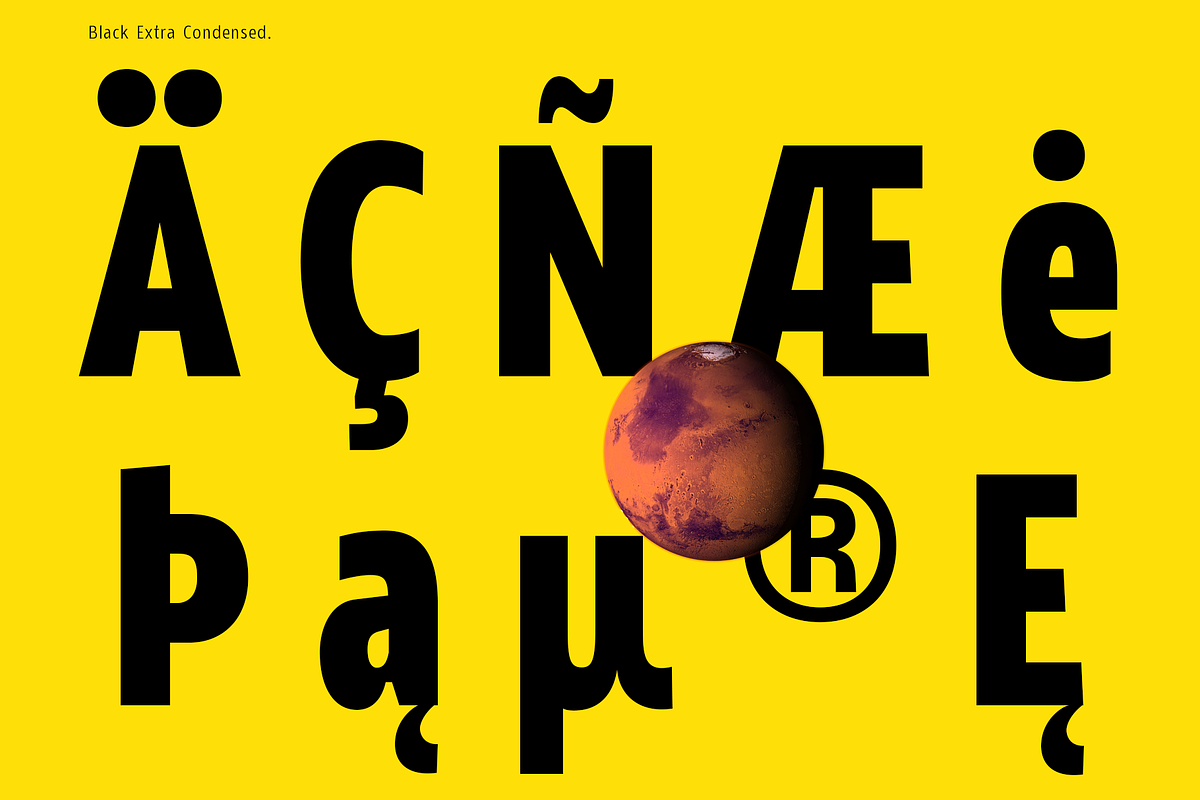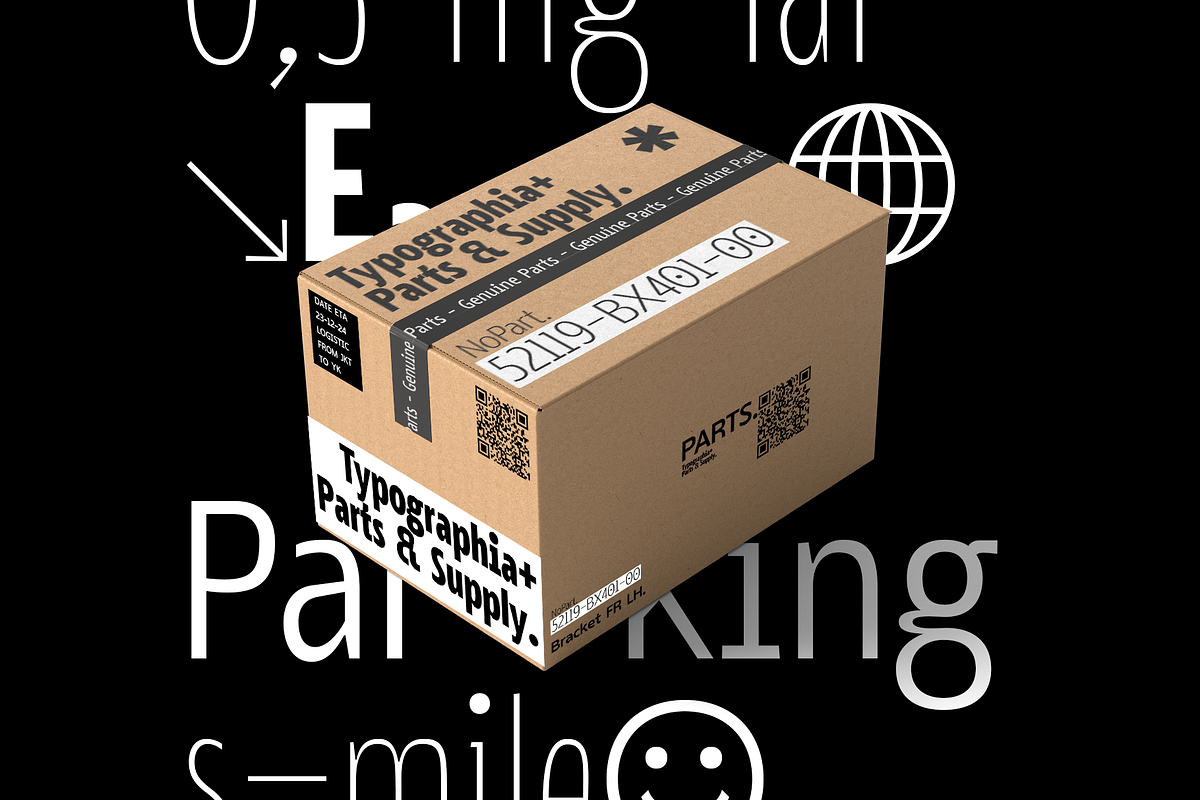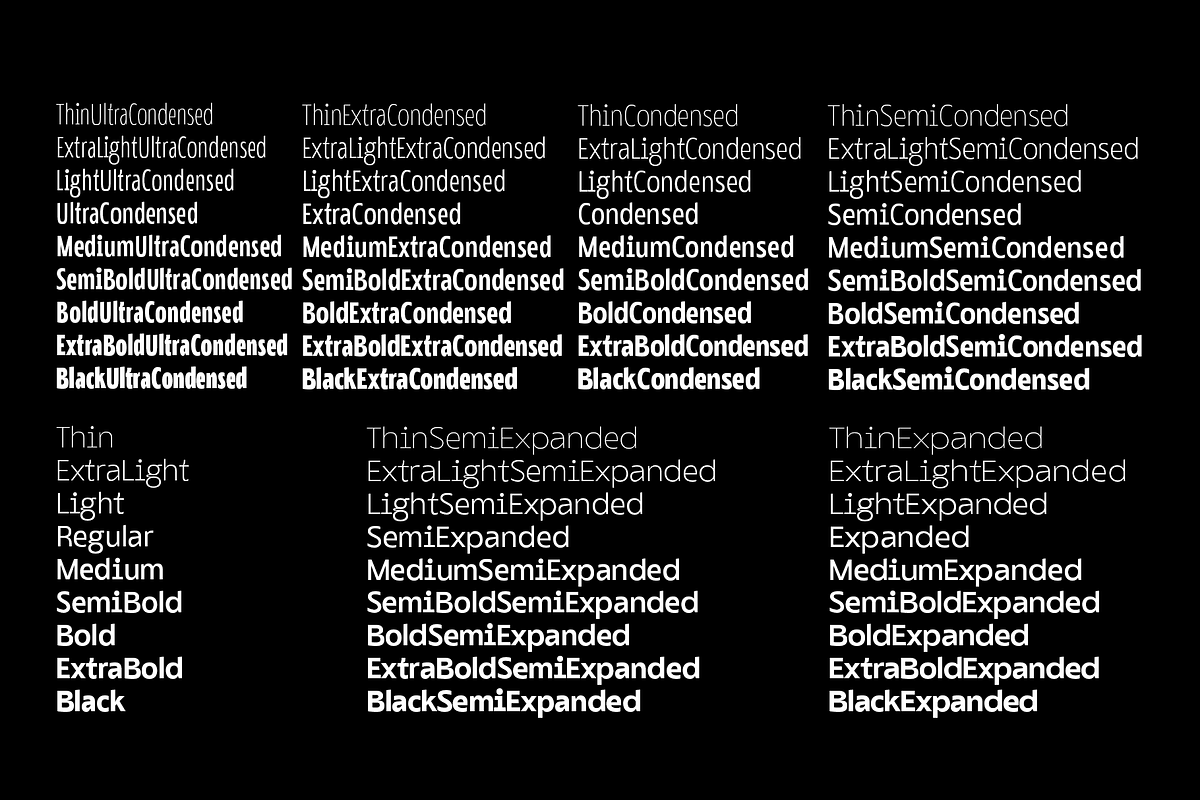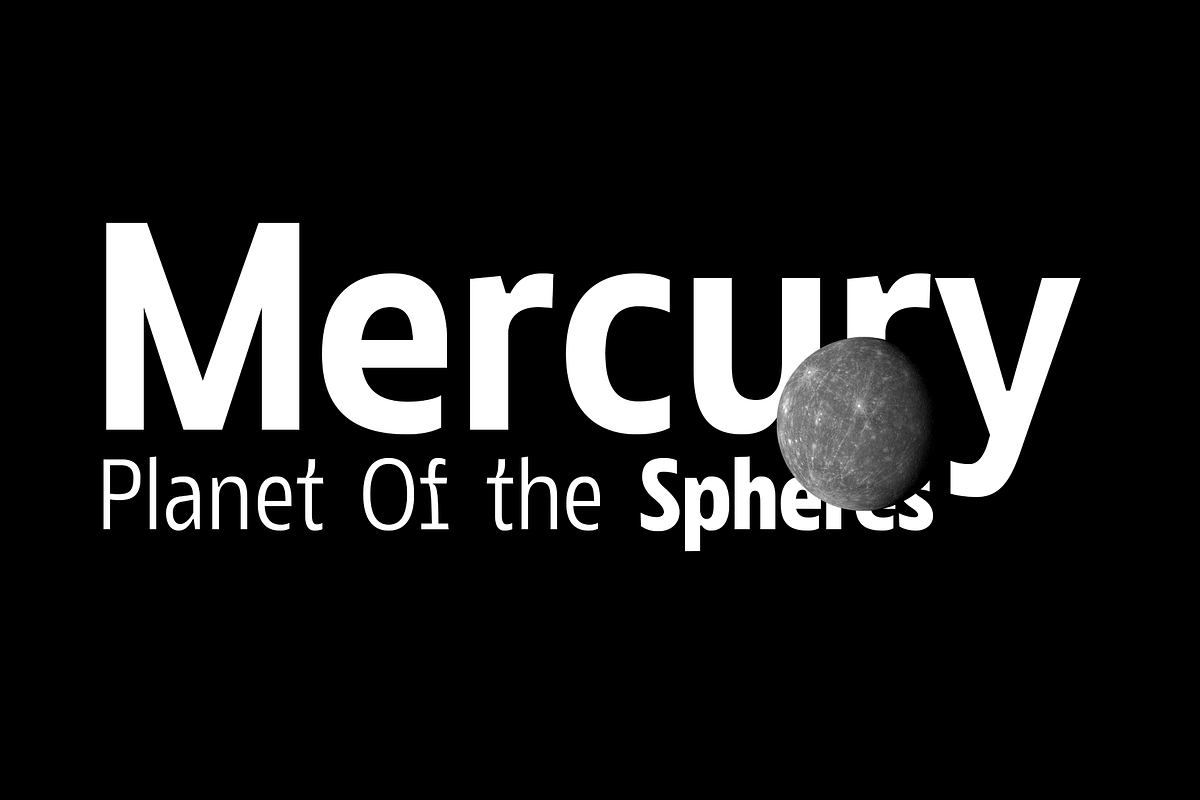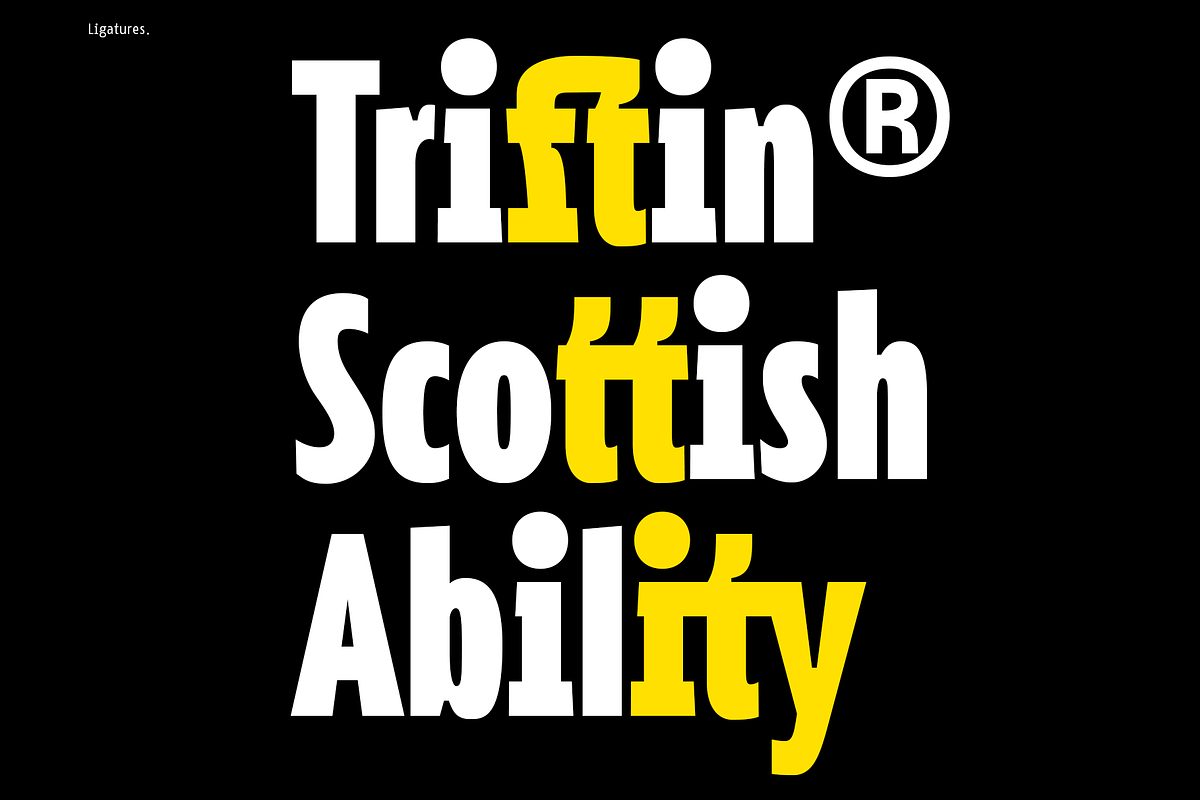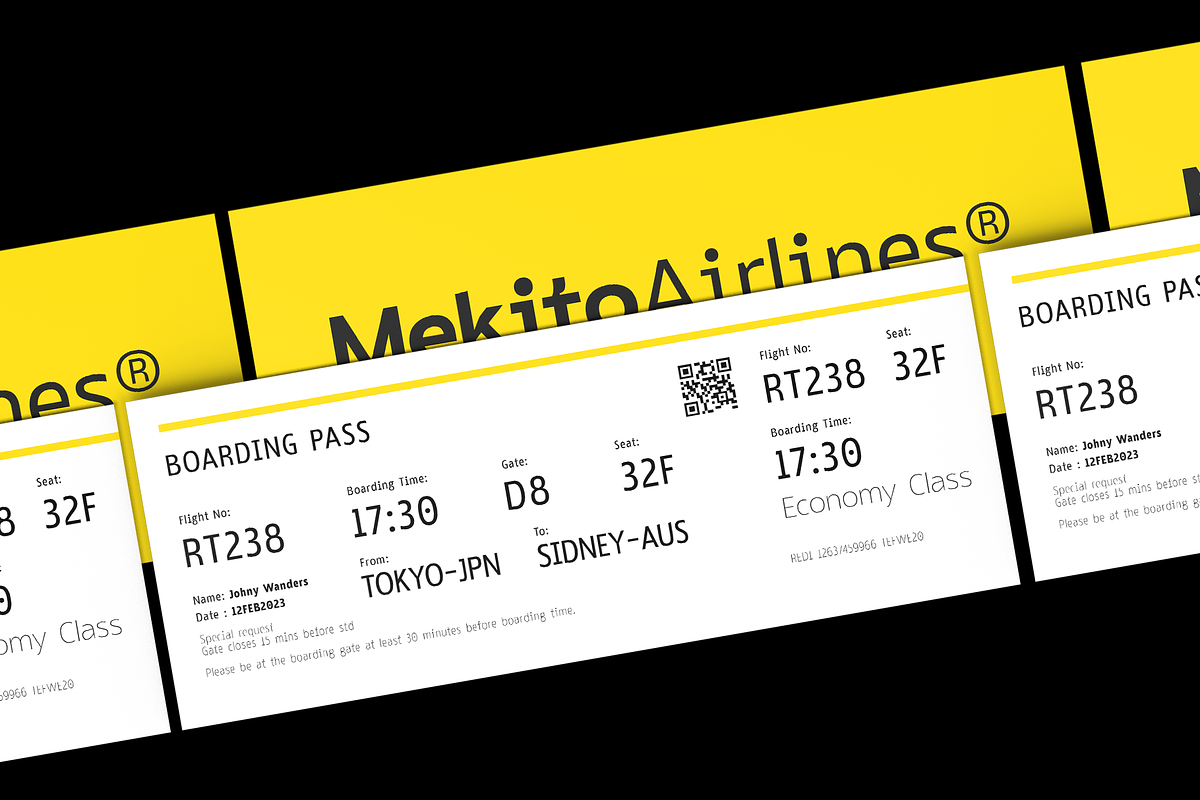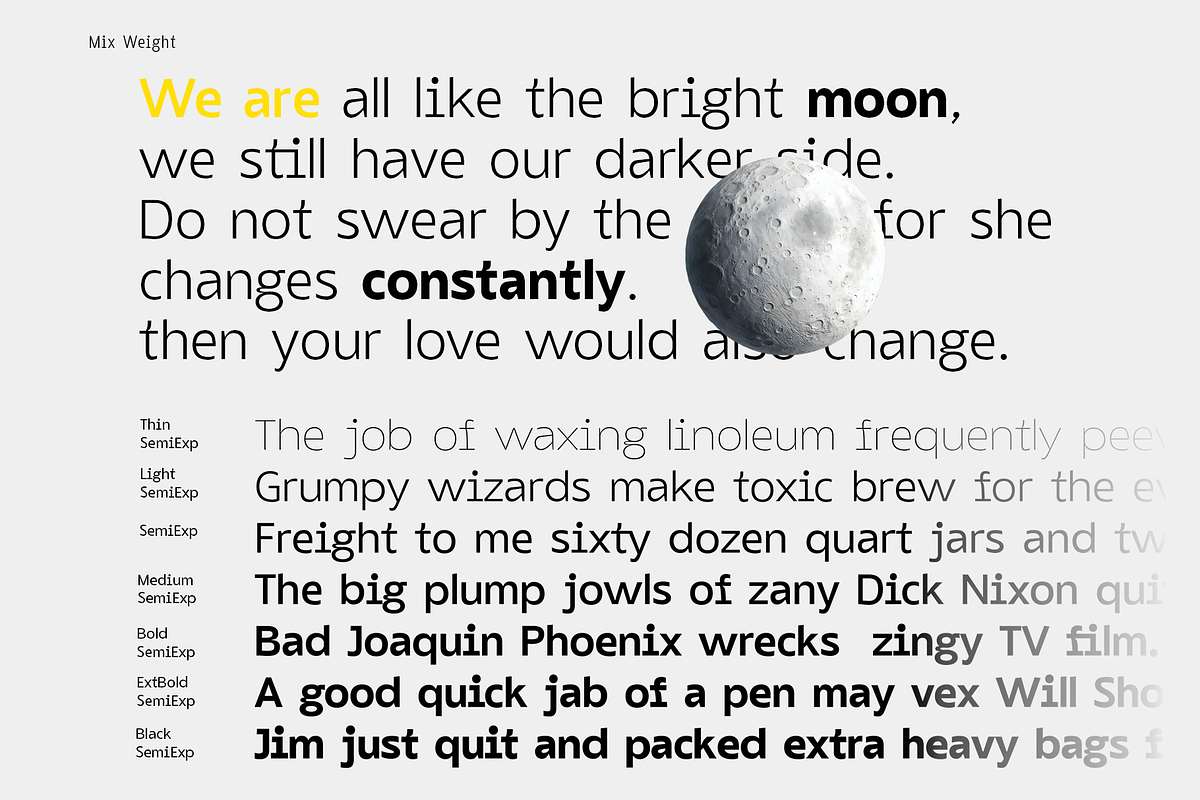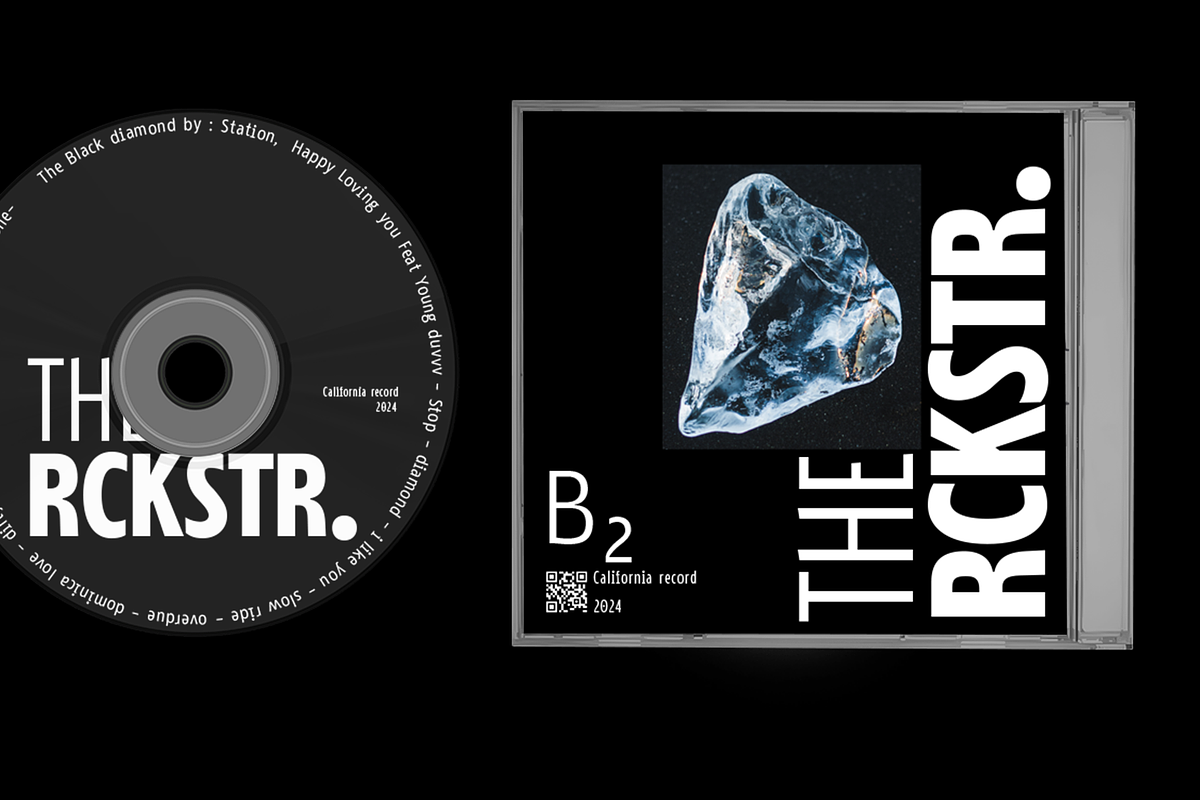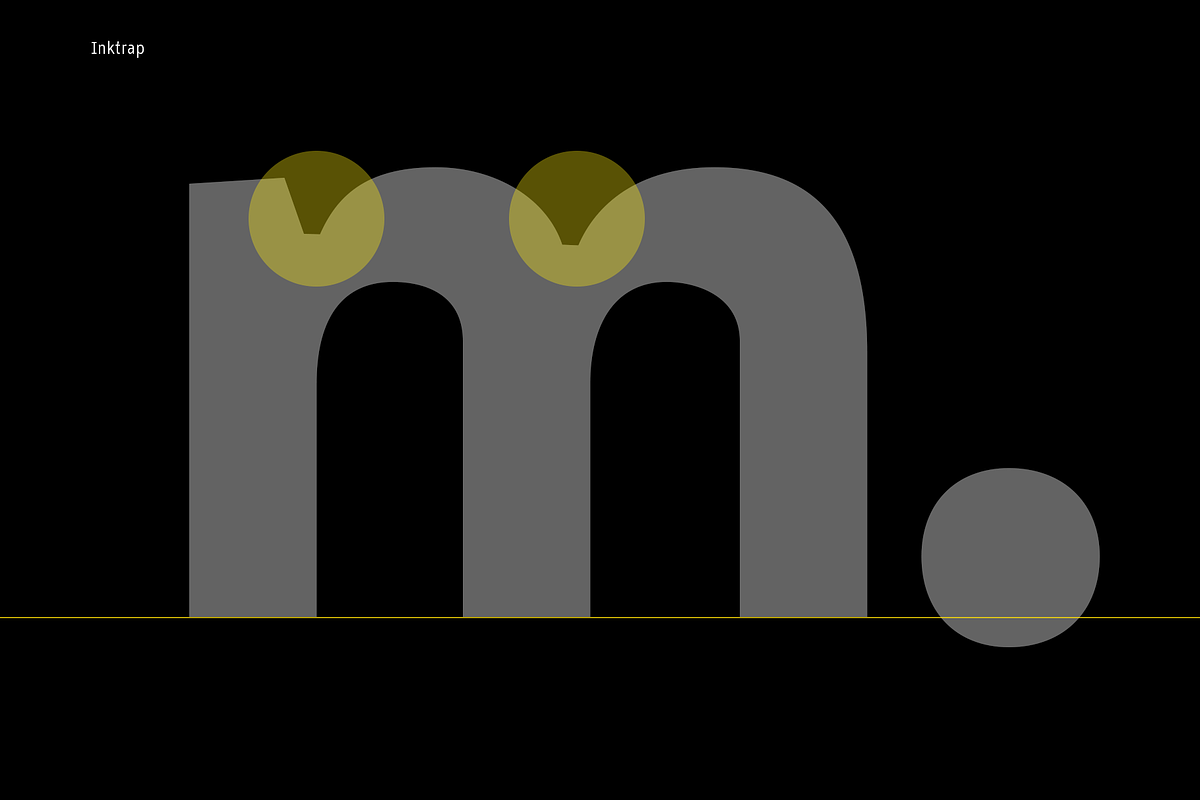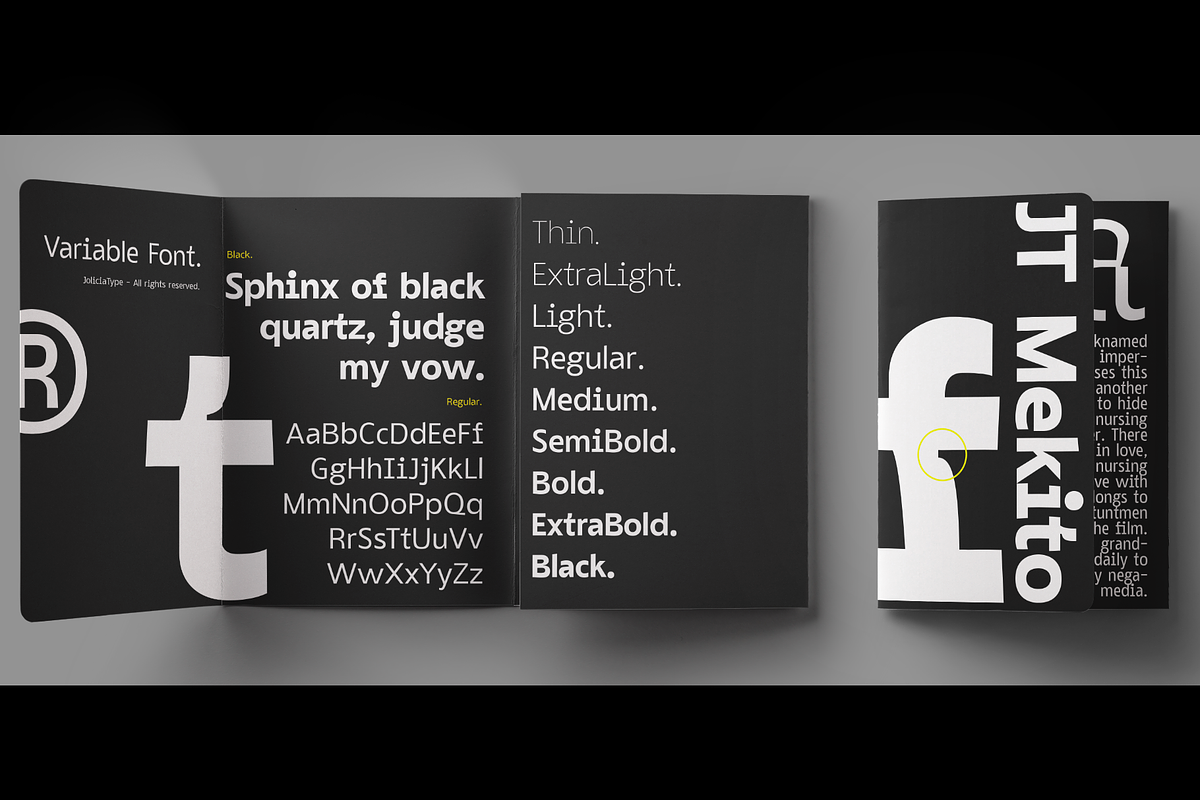
JT Mekito | Geometric Modernism Font
JT Mekito is a Modernism Geometric Sans serif designed by Laire in 2023 and released in early 2024, Inspired by Gothic and Geometry Sans serif styles, where we give a unique added touch to the letters f and t as well as to other letters to legible function at small sizes but still cool if used at large sizes too, and gives a mono style to our letter i so it still looks different and unique, We make it in 63 Weight Styles from Thin to Black where for each width we give Ultra Condensed, Extra Condensed, Semi Condensed, Regular, Condensed, Semi Expanded, Expanded widths. We hope that our users can freely explore our fonts, That's not enough, we also made it Variable, which is more flexible to change Total Glyph 485 covering 89 Languages